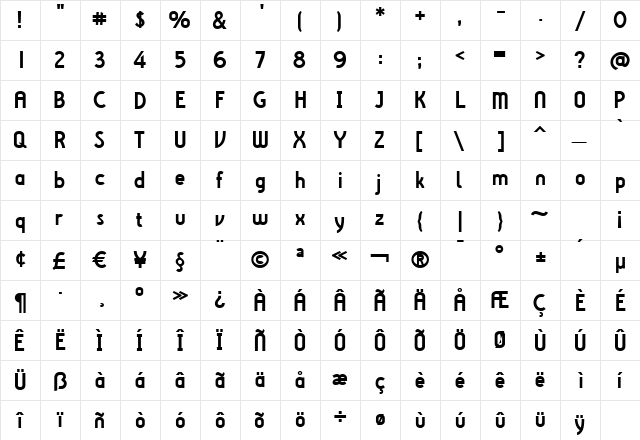
Iru2Black Regular
Design Context for Iru2Black Typeface
Iru2Black takes a measured approach to typography — its balanced proportions and neutral character make it a reliable workhorse for both digital and print work.